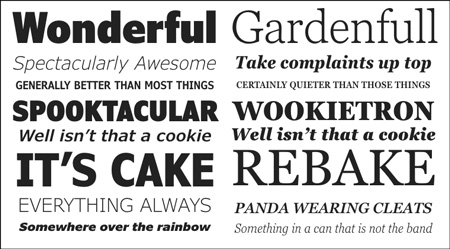
TypeTalk: Supersize My Font Families, Please!
Q. I notice an increasing number of font families containing an unusually large number of weights and/or styles. Are they genuinely useful or just overkill?
A. Font super families are becoming more and more common in the world of digital fonts due to the fact that today’s font production software makes it easier to make “variations on a theme,” so to speak. Super families can fit into one or more categories: those that contain numerous weights (usually eight or more); that have a range of widths such as compressed, condensed and expanded; that include stylistic variants such as sans, serif and slab; as well as specially designed versions (often referred to as opticals) with customized design details intended for captions, text, and display usage.
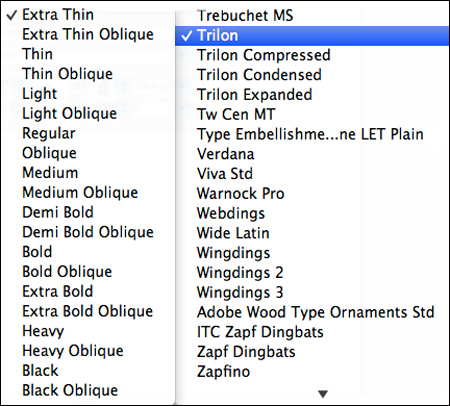
Trilon by Terminal Design is an example of a super family that contains 20 versions for each width. Notice, too, there are four related families: Trilon Compressed, Trilon Condensed, Trilon Regular, and Trilon Expanded, totaling 80 individual fonts. That’s a lot of fonts!
Super families might seem overwhelming at first given the sheer number of members it can contain, but they are definitely worth considering as they offer a broad range of typographic flexibility and options that can help solve some common type and design issues.
Type Size
The days of metal type when a separate font was created for each point size are long gone. In today’s digital fonts where one scalable outline is used for every size, a typeface used at a small size might not work well at larger sizes, especially if it has very thin strokes, extreme weight contrast, and/or small counters, and vice versa.
This can be a real problem when a project requires type to be set at a broad range of sizes, such as from a business card to an ad to a trade show booth or billboard. If this is the case, consider the use of a super family that has specially designed, size-sensitive versions, allowing the type to maintain its integrity and visual consistency.
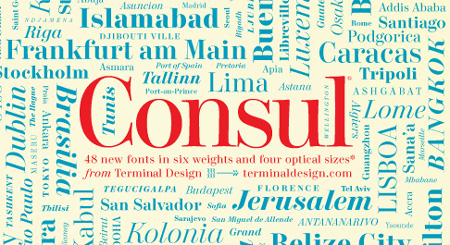
Consul by Terminal Design is an optically sized family available as Caption, Text, Deck (subhead), and Display. James Montalbano has “democratized” this high-contrast design, making it surprisingly legible at smaller sizes.
Combining Typefaces
One of the most challenging and time-consuming of tasks is finding two or more typefaces that work well together. One solution is to consider a super family that contains two or more design variants, such as sans and serif, script, slab, or informal, as well as varying widths.
Since all super family members are usually based on the same skeletal and design structure, they work well together while offering the contrast and emphasis needed for different hierarchical elements, such as body text, headlines and subheads, paragraph lead-ins, and captions.
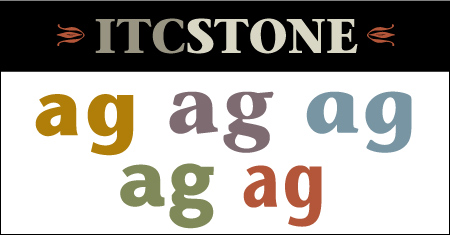
ITC Stone from Stone Type Foundry is a super practical, workhorse type family whose members include San, Serif, Informal, Humanist, and the latest family addition, Sans II.
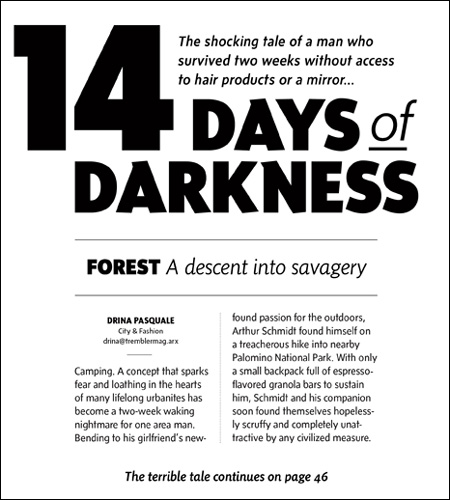
Sense and Sensibility by Shinn Type consists of Sense, a modernist sans serif and its close companion, Sensibility, a humanist sans.
Klint from Linotype is an authoritative, distinctive, yet warm sans that comes in standard, condensed, and expanded widths.
Paper and Surface Considerations
When selecting a typeface for print, take into consideration the kind of paper or other surface it will be printed on. This is especially true when the desired typeface or weight has extreme weight contrast with very thin strokes, is an extra light or ultra thin weight, or has small counters that might close up. Different papers and surfaces — such as mylar, glass and plastic — take ink differently. This can alter the weight of the type (especially the thin strokes), making it heavier or lighter and in some cases, start to break up.
Using a super family that contains a broad range of subtly progressive weights allows you to select the exact weight needed to give you the desired results for the medium you are using. And if the type will appear on more than one surface, customizing the treatment for each version can help produce a more consistent result.
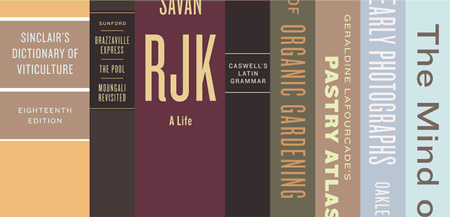
Knockout’s nine-width, four-weight family offers a broad range of choices for both text and display sizes. This super family designed by Hoefler & Frere-Jones offers widths from Flyweight to Sumo, and weights from Junior to Ultimate — ya gotta love it!
Typographic Logos
When designing a typographic logo, it often makes sense design to several versions with subtle differences that help maintain the integrity of the letterforms and overall spacing at a range of sizes. The use of a super family with a broad range of weights can help bridge the gap by allowing for the substitution of subtly different weights for progressively larger (or smaller) versions.
Type Color
Dark or black type on a light or white background can look differently from the same exact type being reversed out of a dark color, a photo, or an image. Often this results in thin strokes appearing too light, breaking up, and in some cases, disappearing totally. Solution? Try using a slightly heavier weight for reverse type as this can beef it up just enough to perform better and visually look the same as a lighter version on a white or light background.
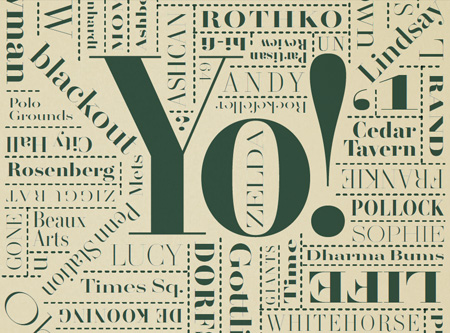
- Slate and Egyptian Slate (Monotype Imaging)
Once you get used to the wide range of options and flexibility of a font super family, a three or four weight family might never be enough again!